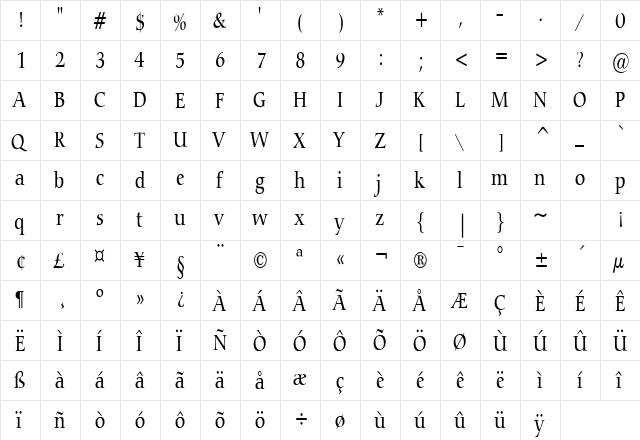
Carmine Condensed Normal
Design Context for Carmine Condensed Typeface
Carmine Condensed is a composed and adaptable typeface that performs quietly and consistently across a wide range of design contexts. The condensed width makes it efficient for tight spaces without sacrificing legibility.